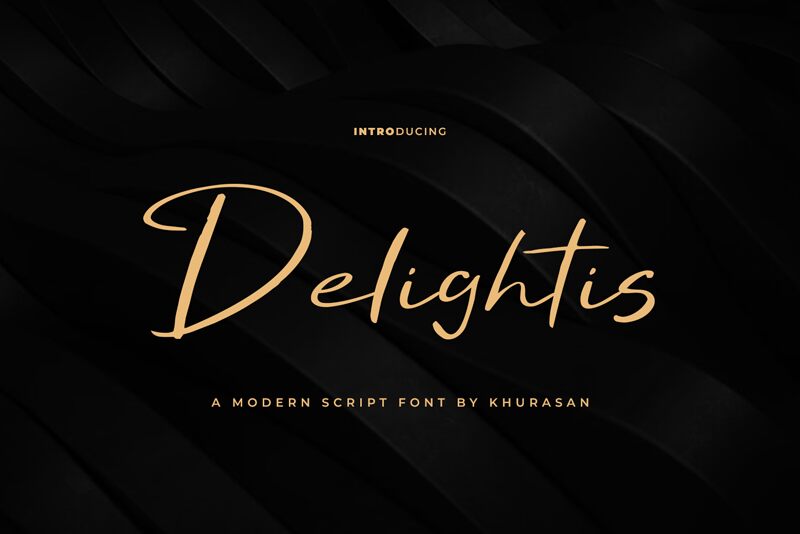
Delightis
Delightis font by Khurasan presents a smooth-flowing handwritten style that captures casual elegance with a personal touch. Its expressive lines and curves bring an immediate sense of warmth and approachability.